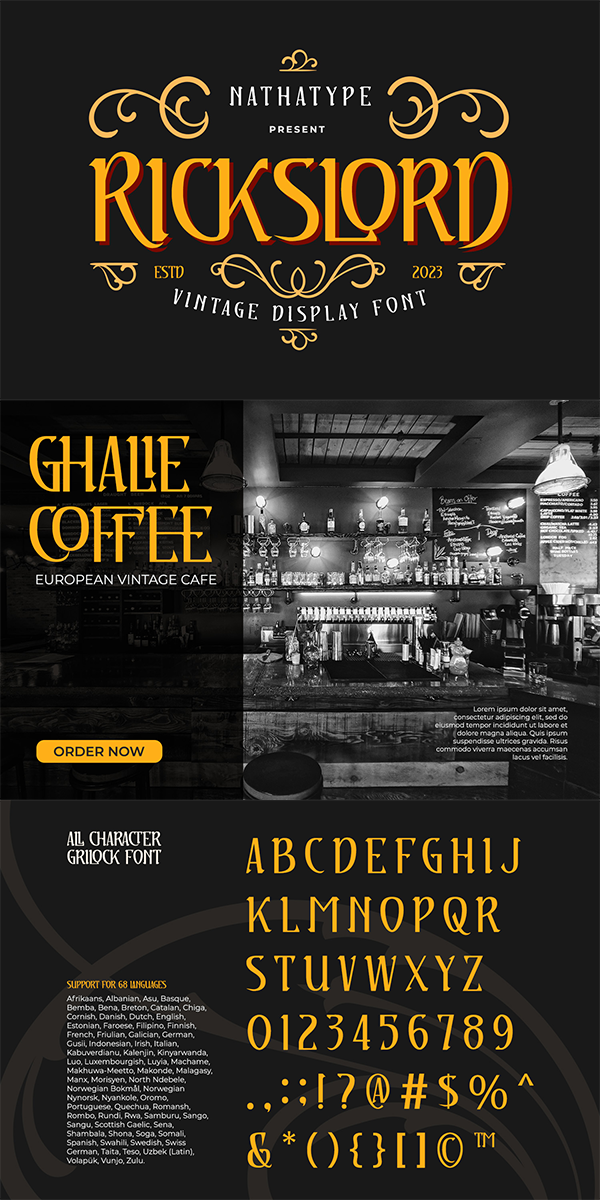
Ricksold Font
About Ricksold
Rickslord is an uppercase display font that transports you back in the early 20th century. This font is a proof of the elegance of a bygone era. Besides that, Rickslord still manages to maintain a modern edge.
The most striking characteristic of Rickslord is its unique contrast. Some characters display high contrast between thick and thin strokes, creating a dramatic visual impact, while others maintain a more consistent weight for a balanced appearance. This blend of contrasts adds an unexpected dynamic quality to the text, making every word a work of art. In addition, beautiful ornaments are included as a bonus. Enjoy the features here.
Rickslord fits in headlines, logos, posters, flyers, branding materials, print media, editorial layouts, and many more. Find out more ways to use this font by taking a look at the font preview.